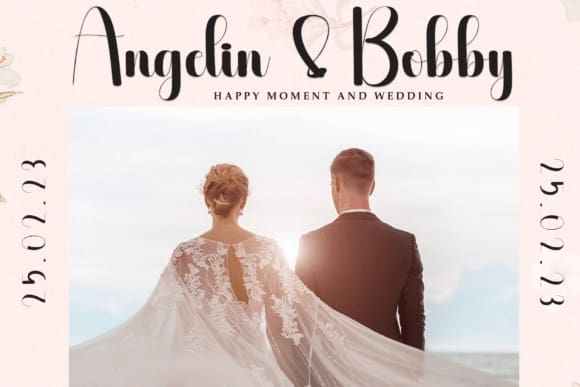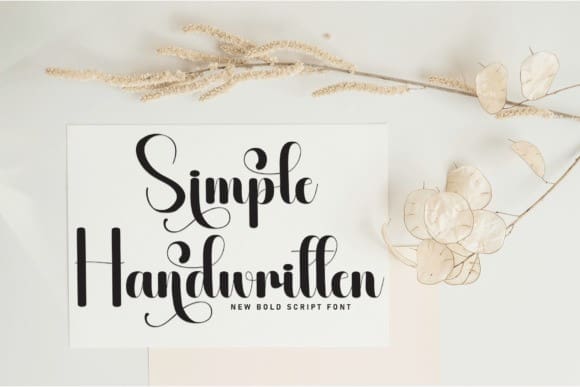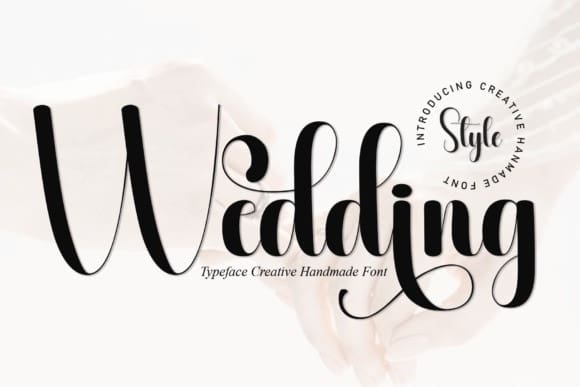
Wedding Style Script Font
Wedding Style Script Font, perfect for wall displays, wedding invitations, social media post logos,
advertisements, product packaging, product designs, labels, photography, watermarks, invitations, stationery, and any project that requires taste handwriting.